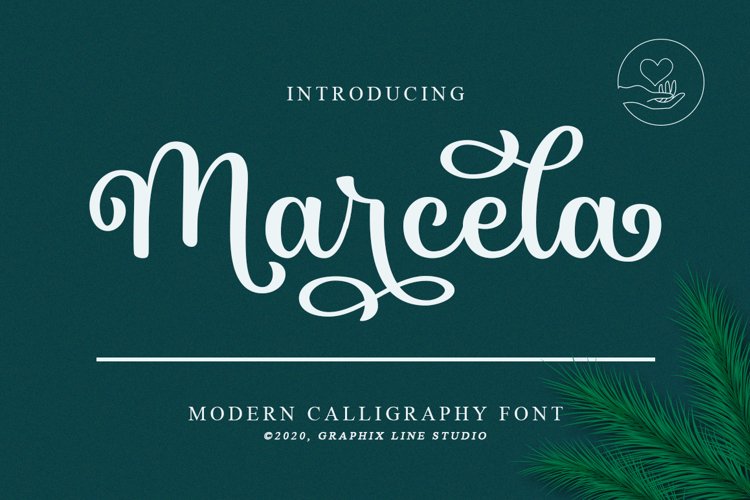
Marcela is a Modern Caligraphy and elegant font. Fall in love with its incredibly versatile style and use it to create gorgeous wedding invitations, beautiful stationary art, eye-catching social media posts, and much more!